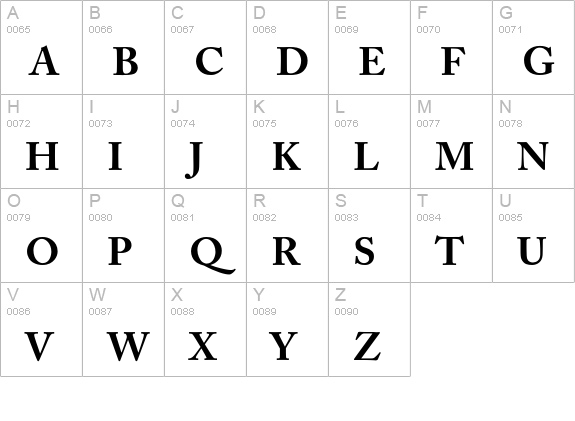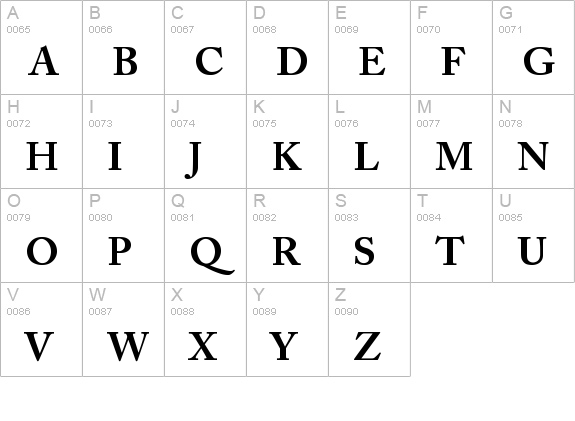
Adobe Caslon Bold Oldstyle Figures Font Details
Adobe Caslon Bold Oldstyle Figures is a strong, high-contrast variant in the Adobe typeface family \xE2\x80\x94 well suited to headlines, attention-grabbing titles, and strong calls-to-action.
Adobe Caslon Bold Oldstyle Figures font is a classic and elegant typeface that exudes a sense of sophistication and timelessness. With its bold and distinctive design, this font is perfect for adding a touch of vintage charm to any project. The oldstyle figures give it a unique look that sets it apart from other fonts, making it a versatile choice for a wide range of design applications. What's even better is that Adobe Caslon Bold Oldstyle Figures font is available for free download at FontsMarket.com. This means you can easily access and use this beautiful font in your projects without any cost. Whether you're working on a print design, website, or any other creative project, this font is sure to elevate your work with its classic and stylish appearance. Overall, Adobe Caslon Bold Oldstyle Figures font is a must-have for designers looking to add a touch of elegance and sophistication to their projects. Download it for free today at FontsMarket.com and start creating stunning designs that stand out from the rest.